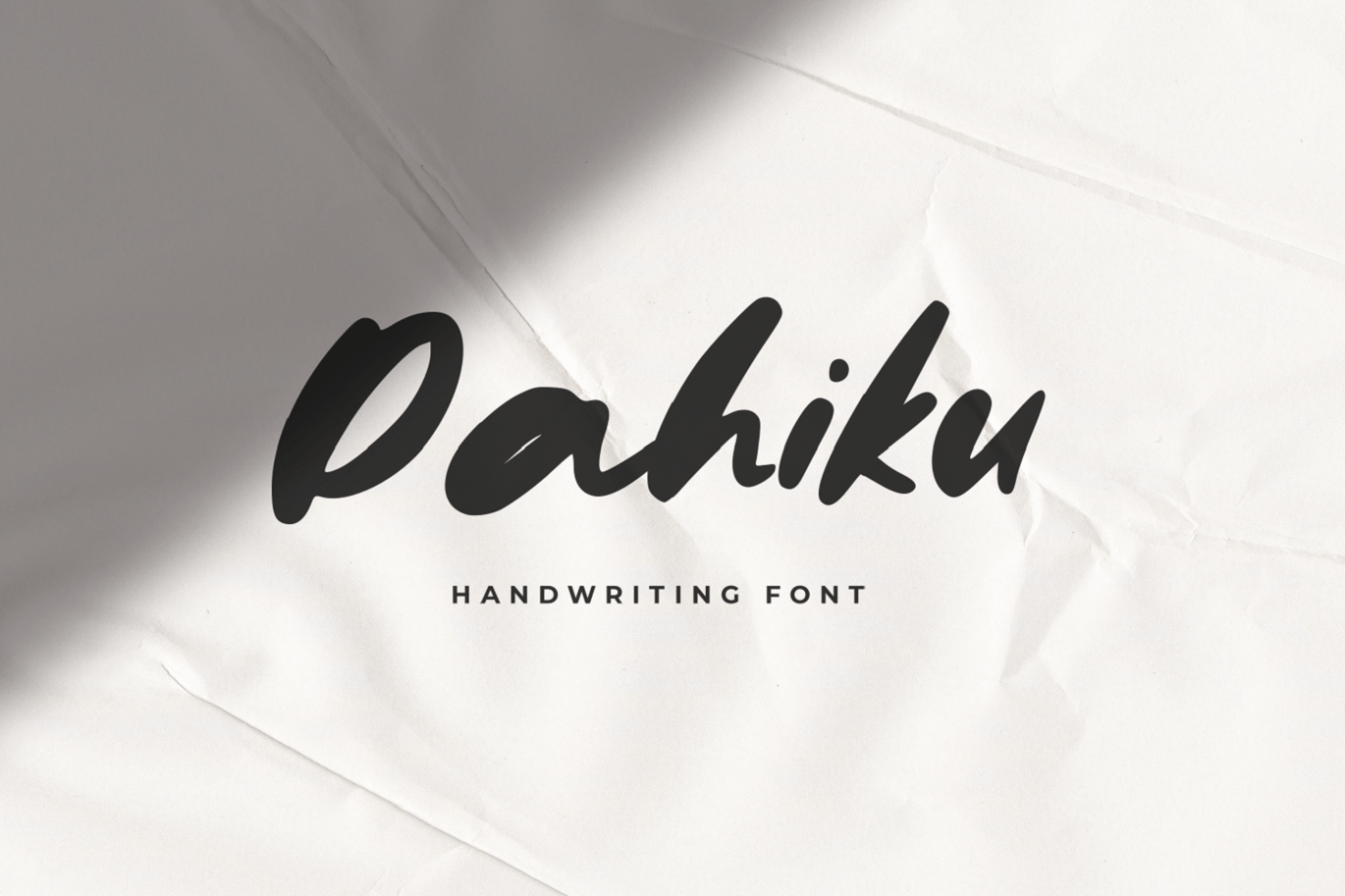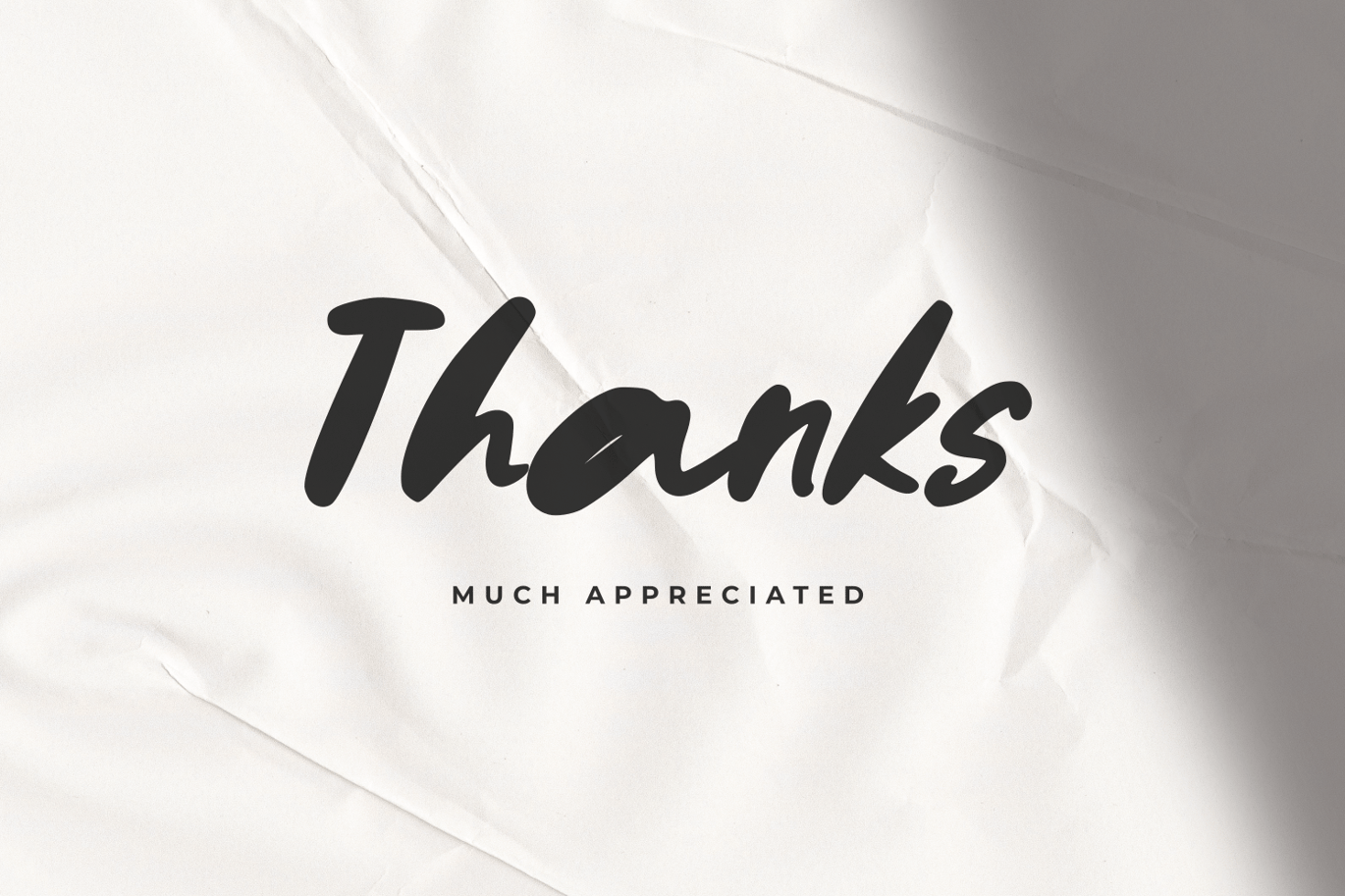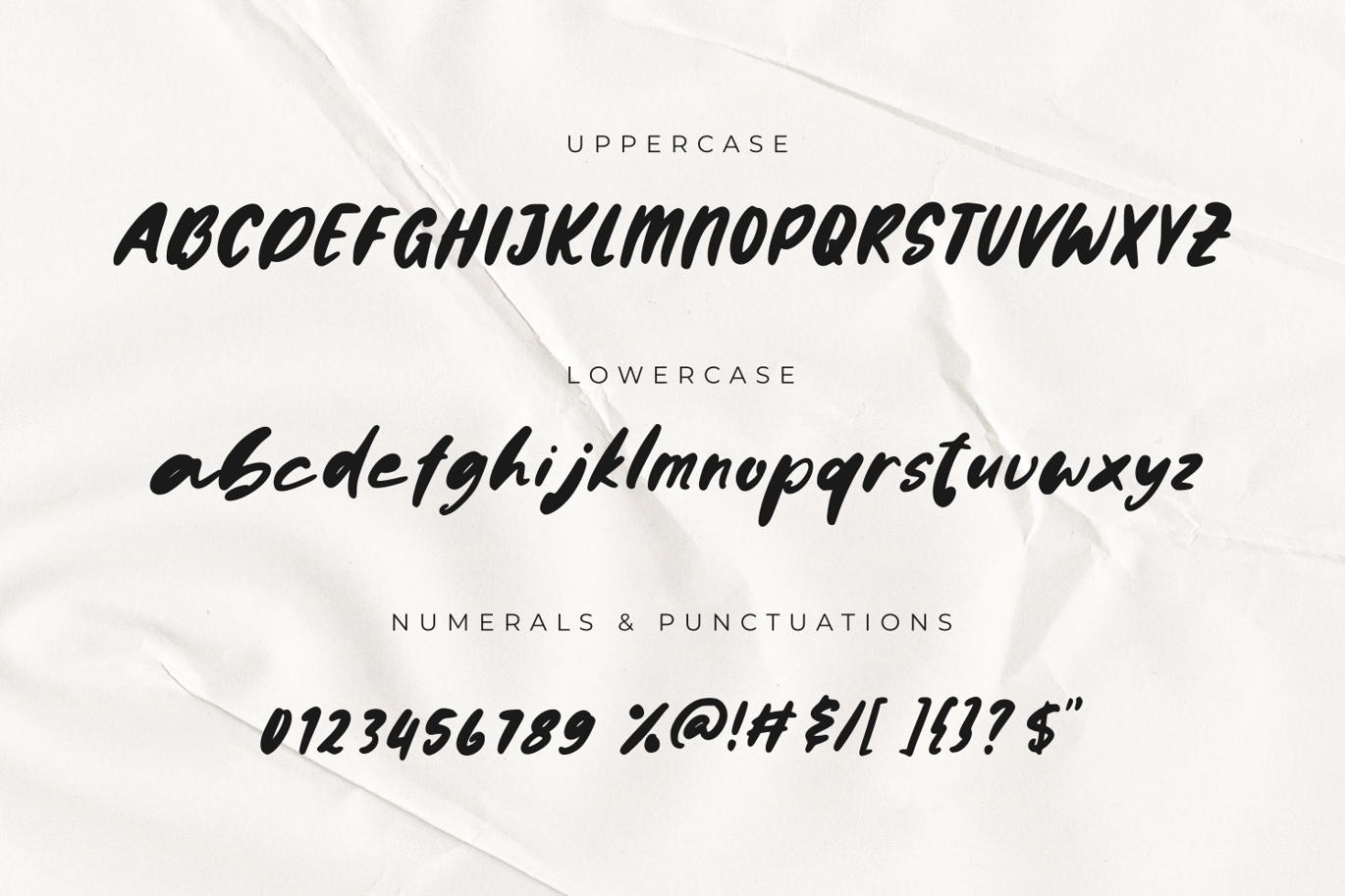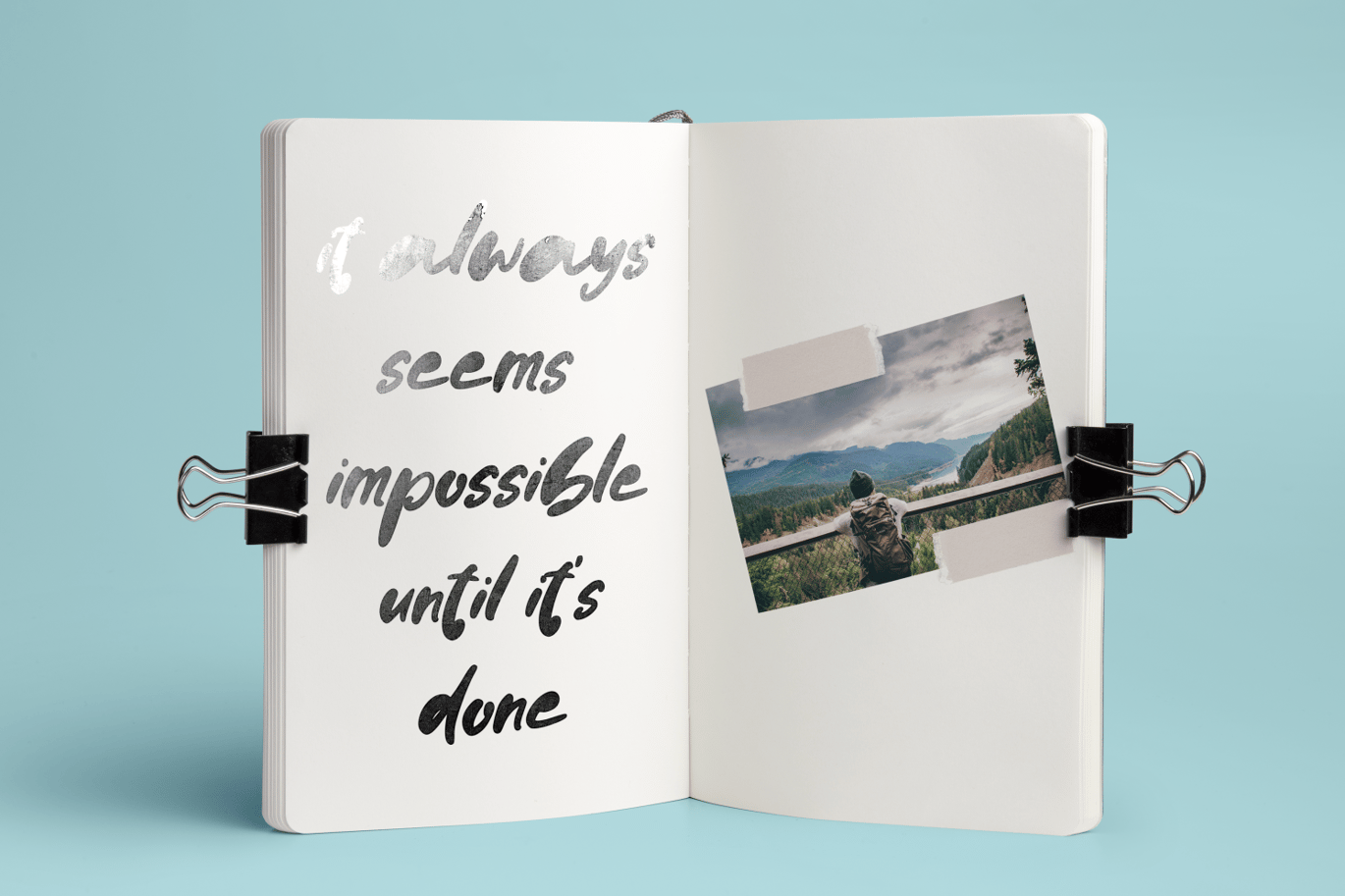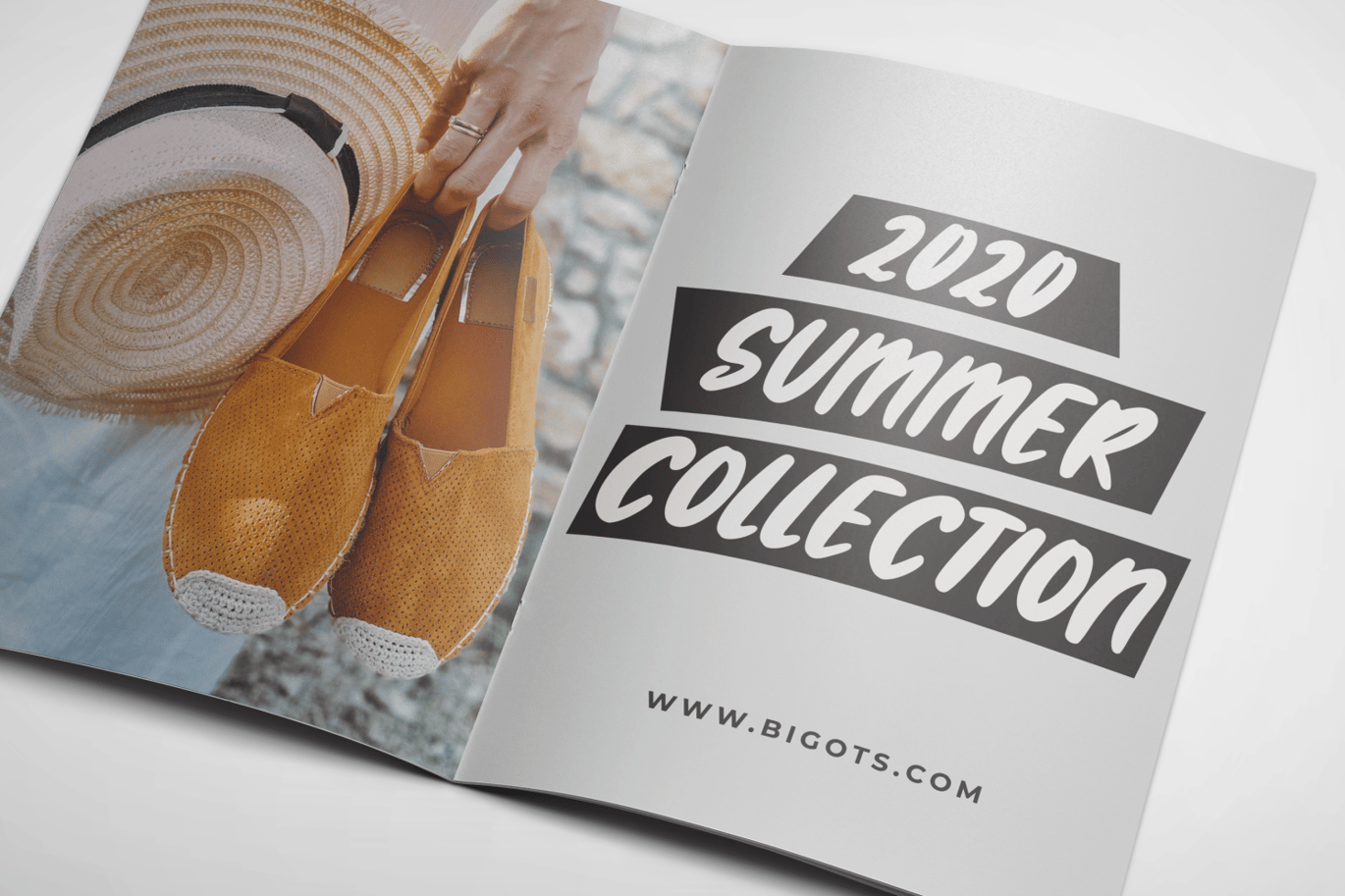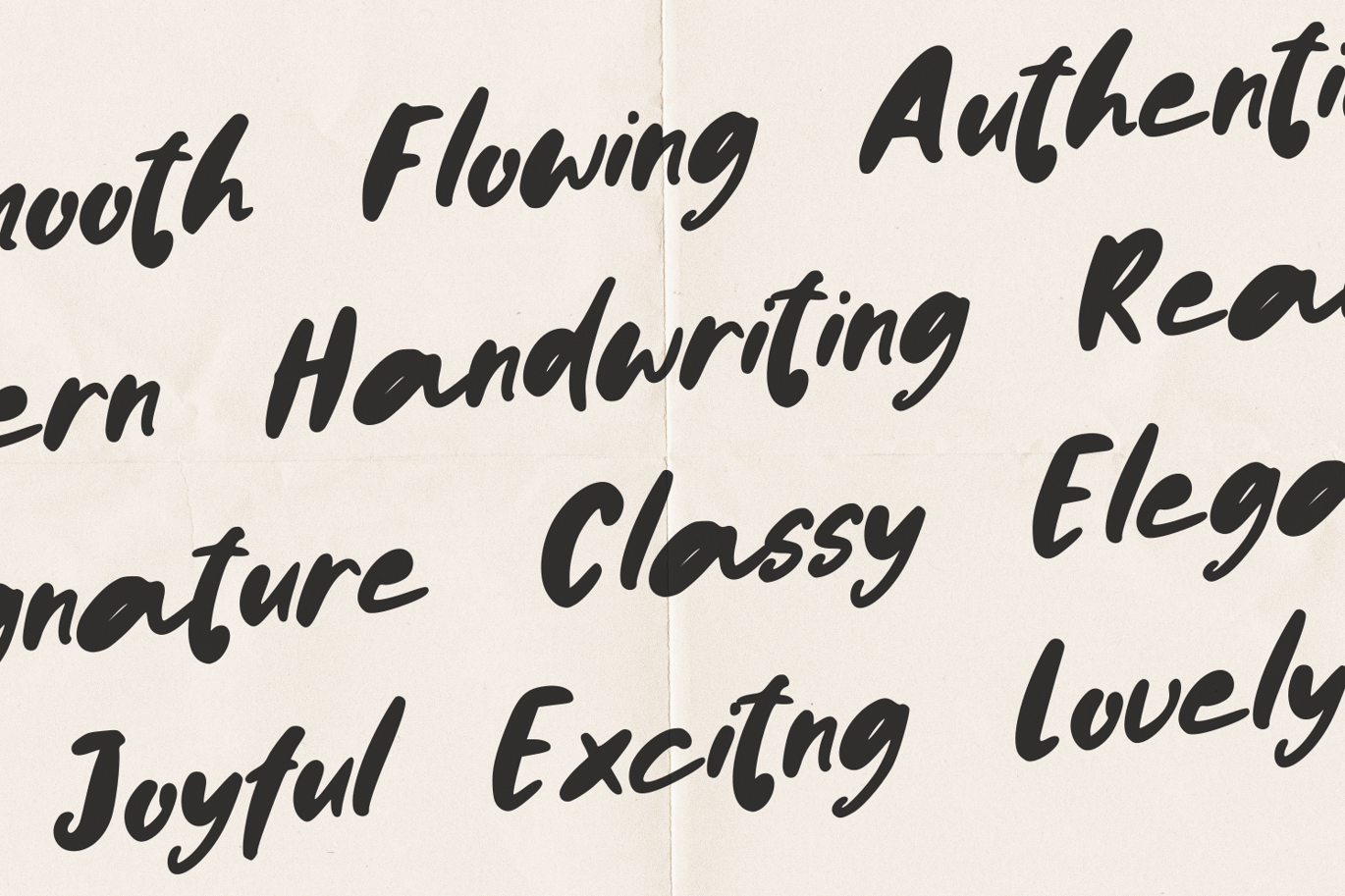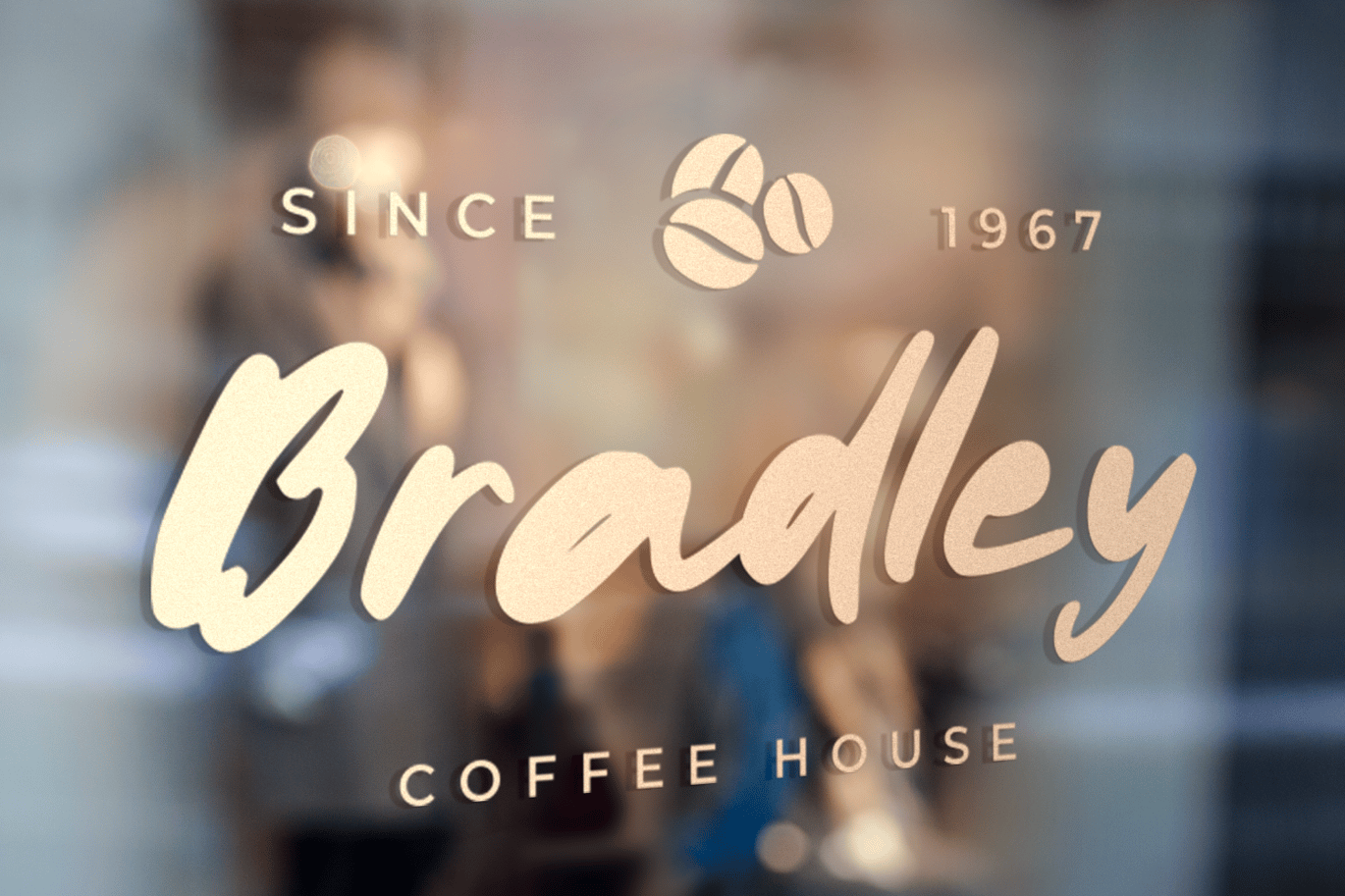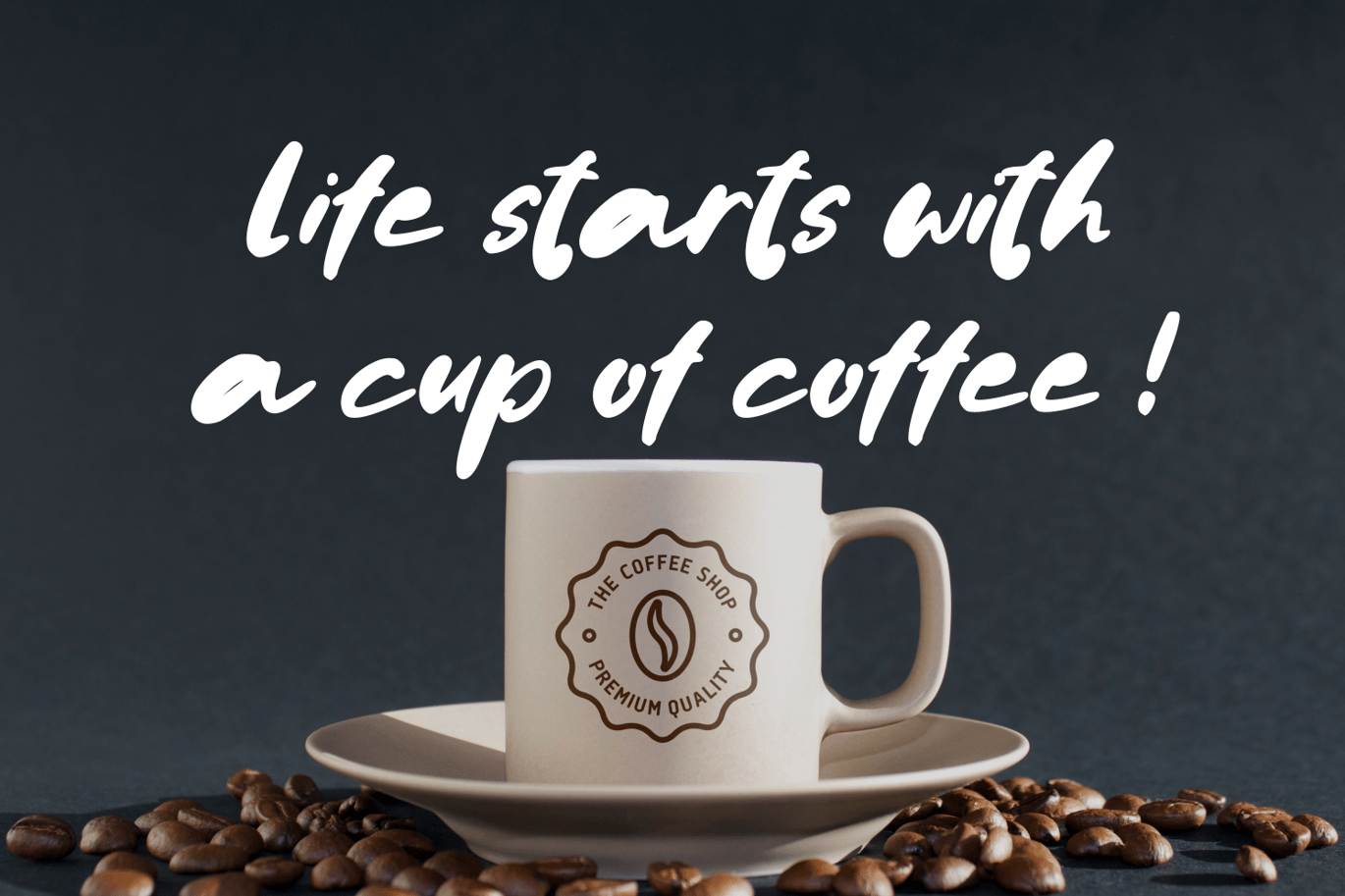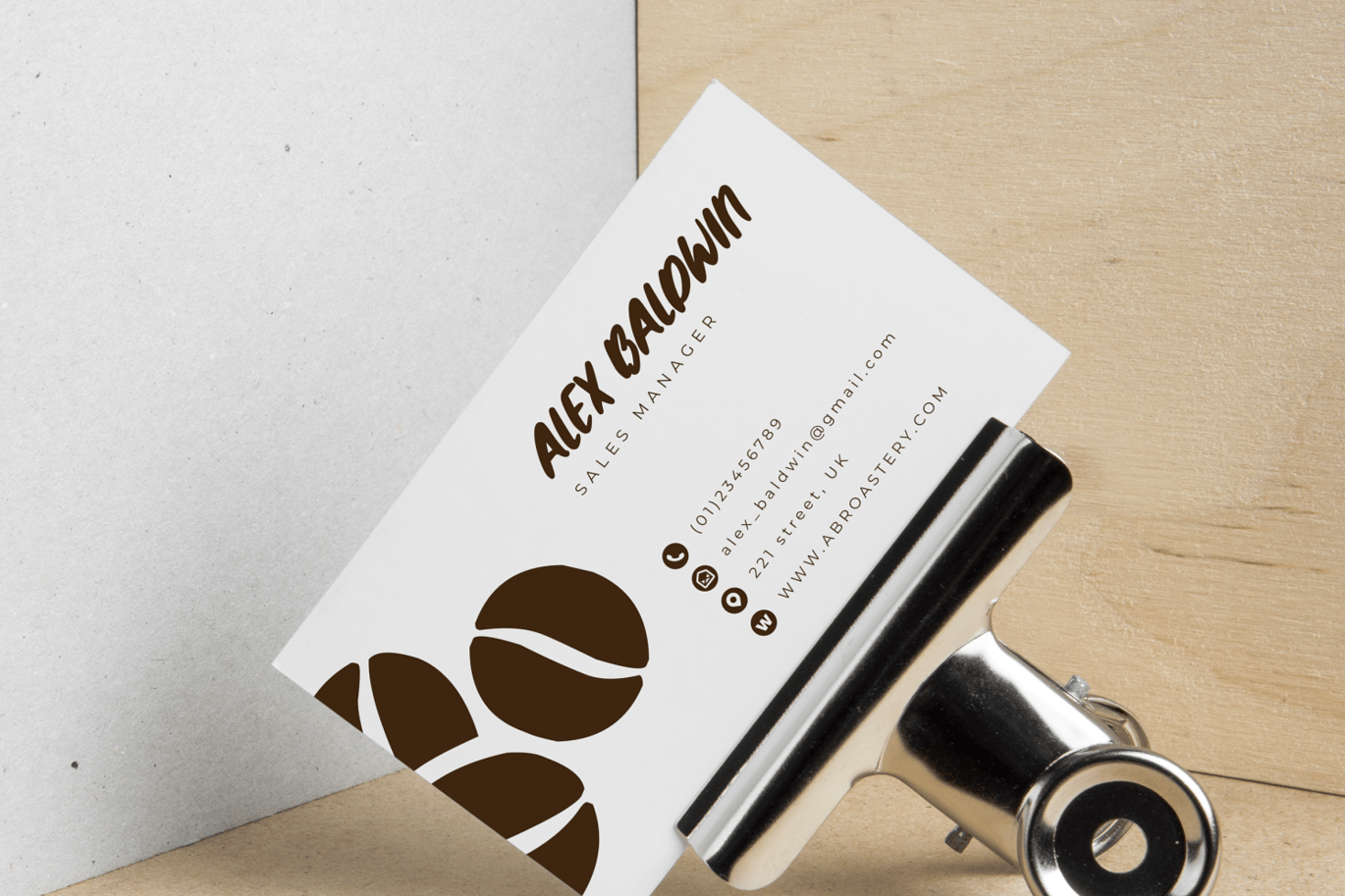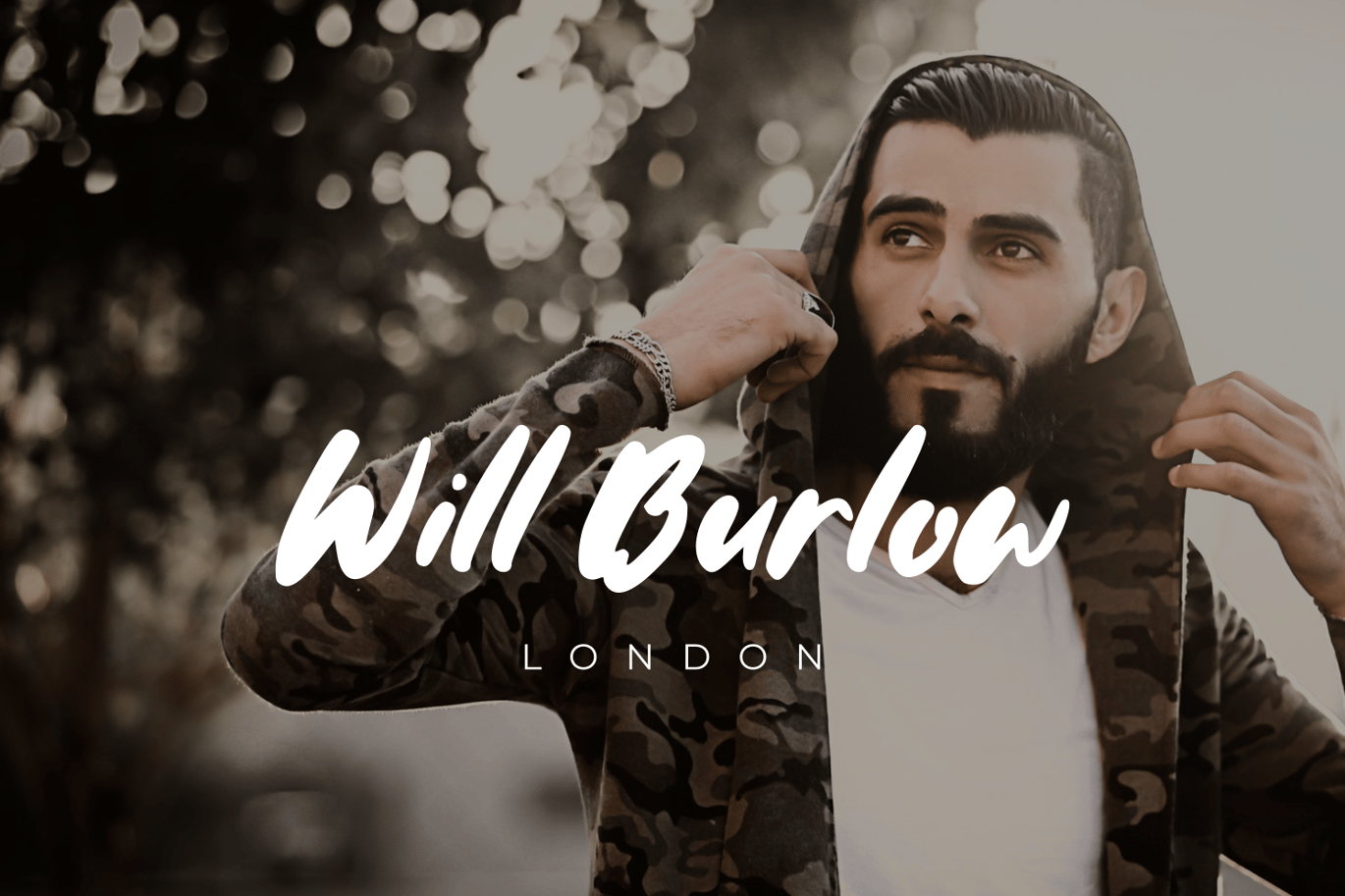
Dahiku – Handwriting Font
Dahiku – Handwriting Font, it’s perfect for logos, name card, magazine layouts, invitations, headers, or even large-scale artwork.
- Multilingual support for various languages